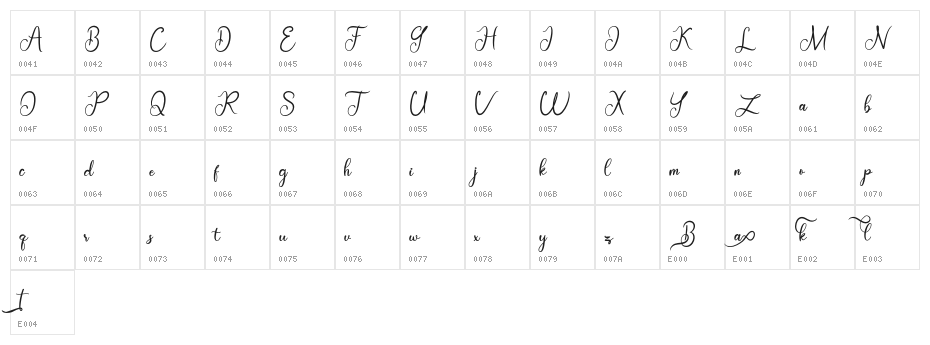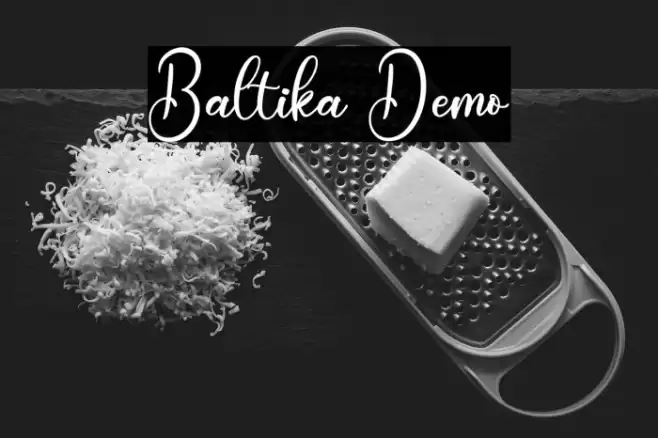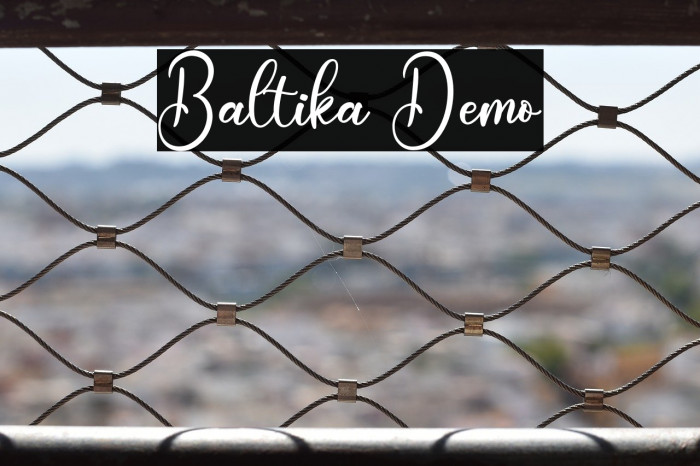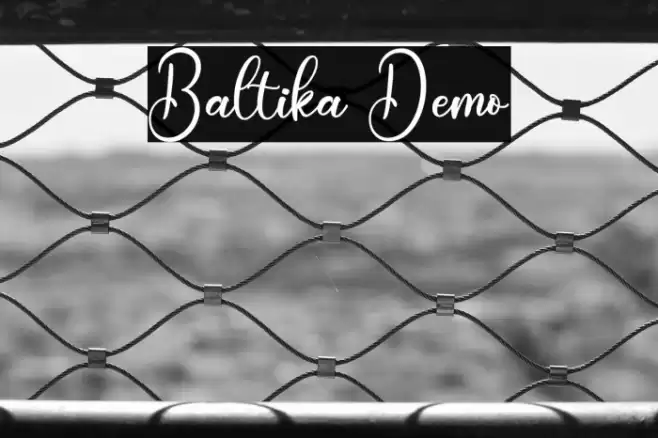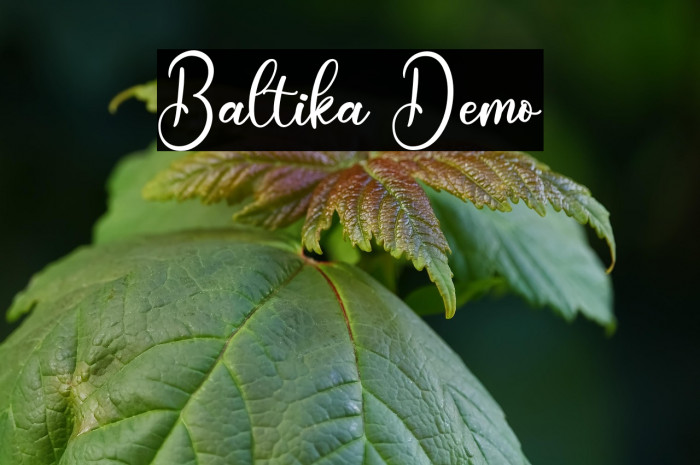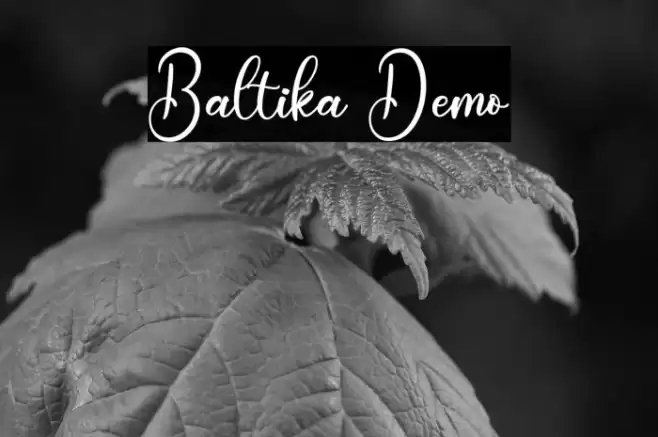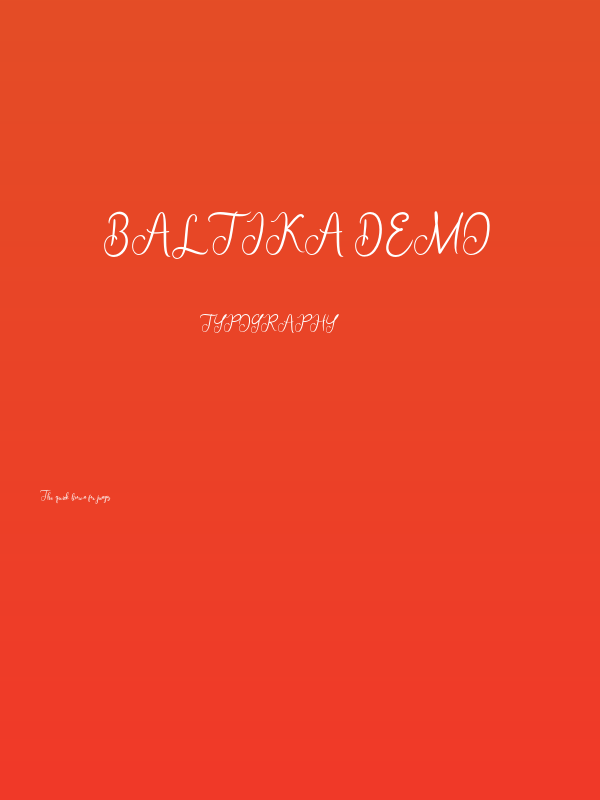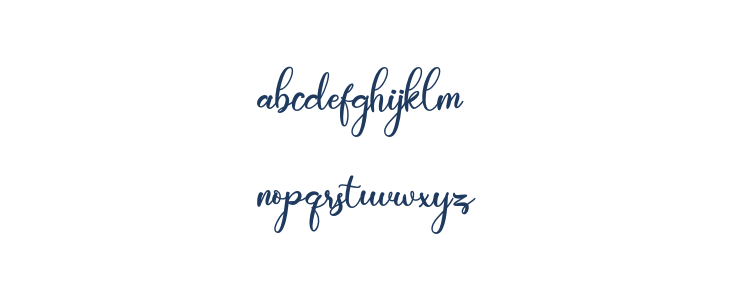
Baltika Demo Font
Baltika Demo Description
This elegant script font features flowing, interconnected letters with a classic and sophisticated appearance. The uppercase characters exhibit graceful loops and swirls, adding a touch of formality and refinement. The lowercase letters maintain a consistent style, with smooth curves and a fluid motion that enhances readability. The font's overall design is reminiscent of traditional calligraphy, making it suitable for projects that require a touch of elegance and class. The absence of special characters suggests a focus on pure letterform aesthetics.
| Proposed Projects | Ideal for wedding invitations, formal event programs, elegant branding, and sophisticated logo designs. |